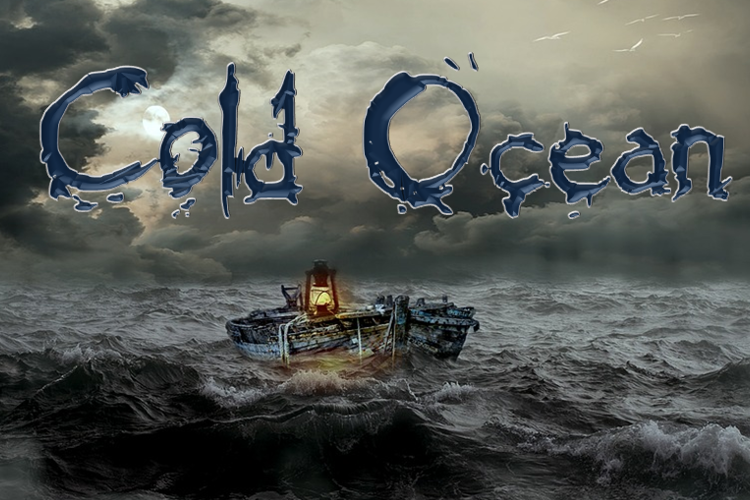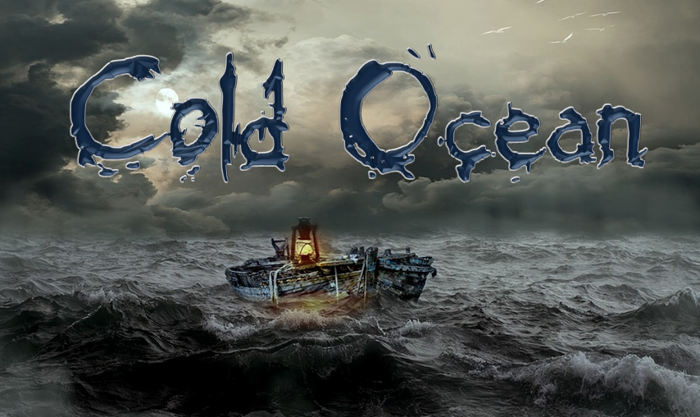
Cold Ocean Font
This font emotes a cold, abandoned, mysterious and at times, old century look. The grey background image is by Myriams-Fotos at Pixabay. The blue background image is by TPHeinz at Pixabay. If you want to use this font commercially, it is only 99c at https://www.creativefabrica.com/designer/shelley-2 Thank you!